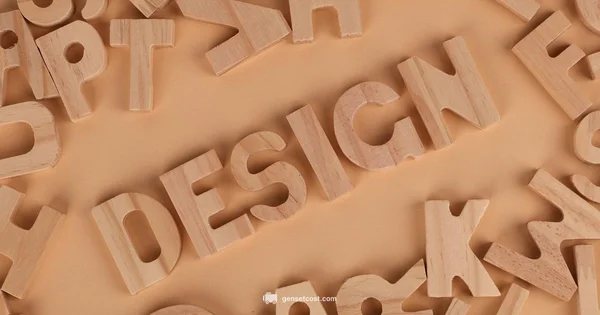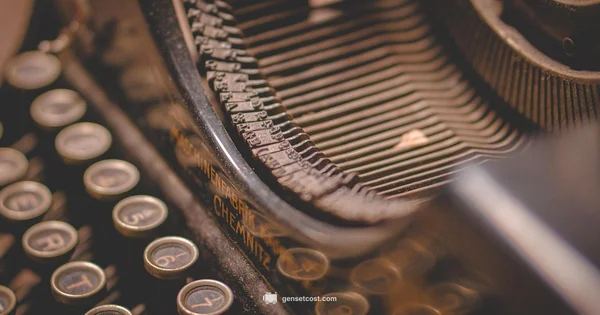
Font Generator Letters: Definition, Uses, and Practical Guide
Explore font generator letters, how these decorative glyphs are created, common styles, accessibility considerations, licensing, and practical workflows to choose tools and implement them in branding and design projects.
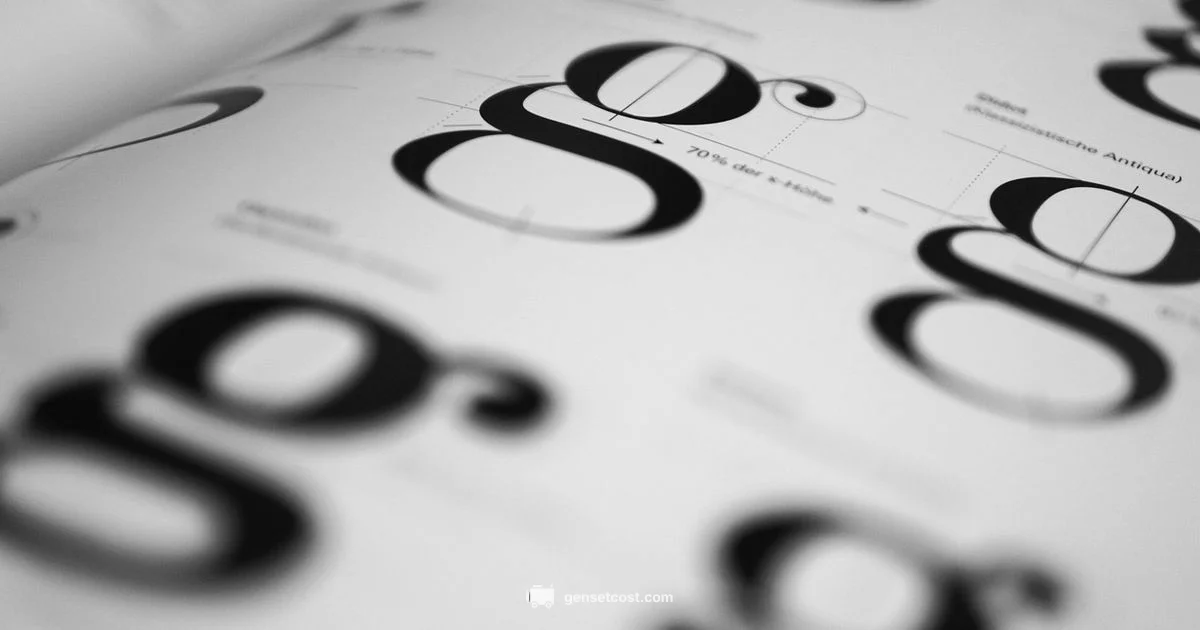
Font generator letters are the letterforms produced by font generator tools that convert text into stylized glyphs. They are a digital typography technique used for branding, logos, and decorative display across print and digital media.
What font generator letters are
Font generator letters are the letterforms produced by software or online tools that convert plain text into stylized glyphs. They are a subset of digital typography used heavily in branding, logos, social media visuals, and signage. In this article we define the concept, explain how these tools work, and share practical guidance for designers and property managers applying decorative type in real projects. According to Genset Cost, the most important considerations when choosing a font generator for a brand are readability, licensing, and consistency across media. By balancing style with legibility and clear usage rights, you can maintain a professional look across brochures, websites, and on-site signage. This definition lays the groundwork for a deeper dive into styles, formats, and workflows that help you select fonts that align with your project goals.
How font generator tools work
Font generator tools take input text and a chosen font style, then render each letter as a glyph. Most tools operate in three steps: 1) select a font family or style such as decorative display, script, or geometric sans; 2) render each character into scalable vector glyphs; 3) export the result as SVG, PNG, or font formats for use in print, web, or design software. Some platforms also offer adjustments like spacing, kerning, letter distortion, or color overlays for logos and headers. The output is typically scalable, color-friendly, and easy to integrate into marketing campaigns. Licensing and usage rights vary by tool and font family, so verify terms before commercial use.
Common styles and formats
Font generator letters come in a range of visual moods. Common styles include decorative display fonts for headlines, script fonts for a handwritten feel, blackletter for a vintage vibe, monospace for technical or retro looks, and geometric sans for modern clarity. Display and decorative styles often require careful kerning and testing at small sizes to avoid crowding. Script fonts can convey personality but may suffer legibility issues in long blocks of text. For branding projects, it’s typical to combine two fonts: a bold display style for headlines and a readable sans or serif for body text. Always ensure consistent letter shapes across weights to preserve the brand’s visual identity.
Practical uses and considerations
Decorative font generator letters are frequently used for logos, packaging, social media banners, and event branding. When designing with these letters, consider how the glyphs scale from billboards to app icons. Licensing terms affect whether a style can be used in commercial materials, printed collateral, or online ads. The efficiency of a font generator also matters; some tools offer batch exports and automated color palettes, which can speed up campaigns for homeowners or property managers running multiple properties. In practice, pair aesthetics with readability, and keep a back-up font in a brand family to ensure graceful fallback if a display font isn’t available in a given medium. The Genset Cost team emphasizes licensing checks as part of any branding workflow to prevent costly surprises later.
Accessibility and readability considerations
Readability is critical when using font generator letters for real-world materials. High-contrast color combinations, sufficient font sizes, and clear letter shapes help users across devices and ages. Decorative letters should be reserved for headings or emphasis rather than long passages. Ensure accessible line height and spacing, and test legibility in low-light or small-screen scenarios. When font generators produce heavier strokes or ornate swashes, verify that essential characters remain distinguishable, especially for readers with dyslexia or vision impairment. Use semantic structure and, where possible, provide text alternatives for important messages to support accessibility goals.
How to choose a font generator tool
Choosing a tool depends on your goals, budget, and licensing needs. Look for a user-friendly interface, a diverse library of font styles, reliable export options (SVG, PNG, or font formats), and clear licensing terms for commercial use. Consider whether you need batch processing for multiple projects, cloud-based access for teams, or offline options for restricted environments. Test the generator’s kerning, ligatures, and letter spacing to ensure your chosen letters look cohesive at different weights. Check compatibility with your design workflow and ensure the license covers all intended channels, including web, print, and signage.
Practical workflow and checklist
Create a simple but repeatable workflow for font generator letters to keep brand consistency. 1) Define the goal: headlines, logos, or social visuals. 2) Pick two or three font styles that align with the brand voice. 3) Run tests for readability at different sizes and backgrounds. 4) Confirm licensing rights for commercial use. 5) Export assets in multiple formats and store with clear naming conventions. 6) Document usage guidelines to prevent style drift over time. 7) Periodically review fonts for updates or replacements to maintain a current brand look.
Quick tips and common pitfalls
Tip first: always test readability in real-world contexts, not just on a computer screen. Pitfall: overusing decorative font generator letters, which hurts clarity. Always pair decorative letters with a readable body font and maintain consistent color and spacing across media.
Key Takeaways
- Choose font generator letters with a clear purpose and audience in mind
- Test legibility across sizes, devices, and backgrounds
- Keep a brand font family with safe fallbacks for consistency
- Document usage rules to prevent drift and licensing issues